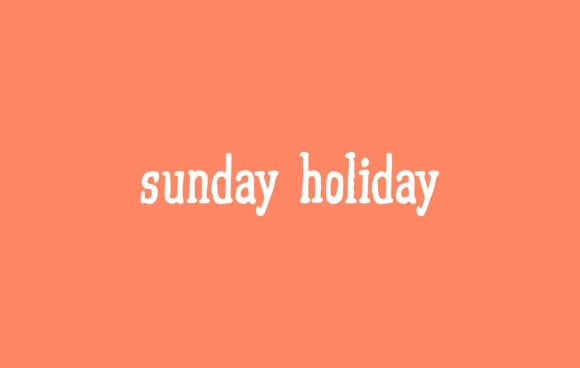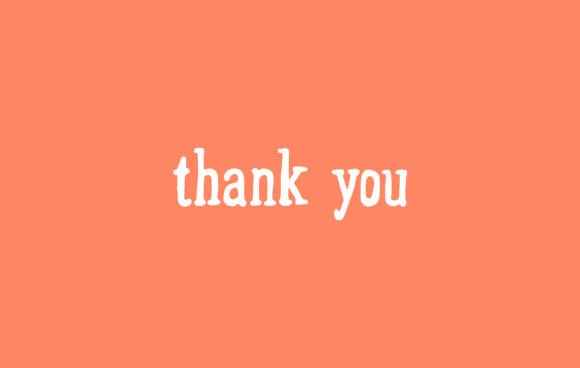
Introducing Chocolate Font: The Ultimate Handwritten Font for Creative Expression
Are you tired of using the same old fonts for your creative projects? Look no further than Chocolate Font, an authentic handwritten font that adds a romantic touch to any design. Expertly crafted to be a true favorite among designers and crafters, this font has the potential to elevate your creative ideas to new heights.
What Makes Chocolate Font So Special?
Chocolate Font is more than just a pretty face – it’s a versatile and legible font that’s perfect for a wide range of design applications. Whether you’re looking to create eye-catching magazine headlines, engaging social media graphics, or beautiful wedding invitations, this font is sure to impress. Its unique blend of elegance and playfulness makes it an ideal choice for designers and crafters who want to add a personal touch to their work.
Key Features of Chocolate Font
- Authentic Handwritten Style: Chocolate Font is a genuine handwritten font that’s been carefully crafted to capture the nuances of human handwriting.
- Romantic Touch: This font exudes a sense of romance and whimsy, making it perfect for designs that require a touch of elegance and sophistication.
- Legible and Versatile: Chocolate Font is highly legible, making it suitable for use as both title and body text.
- Wide Range of Applications: From magazine headlines and social media graphics to wedding invitations and cards, this font is perfect for a wide range of design projects.
Why Designers and Crafters Love Chocolate Font
So, what sets Chocolate Font apart from other fonts on the market? For starters, its unique handwritten style adds a personal touch to any design, making it stand out from the crowd. Additionally, its legibility and versatility make it easy to use in a variety of contexts, from large-scale headlines to smaller body text.
Designers and crafters also love Chocolate Font for its ability to evoke emotions and create a sense of connection with the viewer. Whether you’re looking to create a romantic wedding invitation or a playful social media graphic, this font is sure to help you convey your message in a way that’s both stylish and effective.
How to Use Chocolate Font in Your Designs
Using Chocolate Font in your designs is easy! Here are a few tips to get you started:
- Pair it with Other Fonts: Chocolate Font pairs beautifully with other fonts, making it easy to create visually interesting and dynamic designs.
- Experiment with Colors: This font looks great in a variety of colors, from rich and bold to soft and pastel.
- Play with Texture and Patterns: Add an extra layer of interest to your design by incorporating texture and patterns into your work.